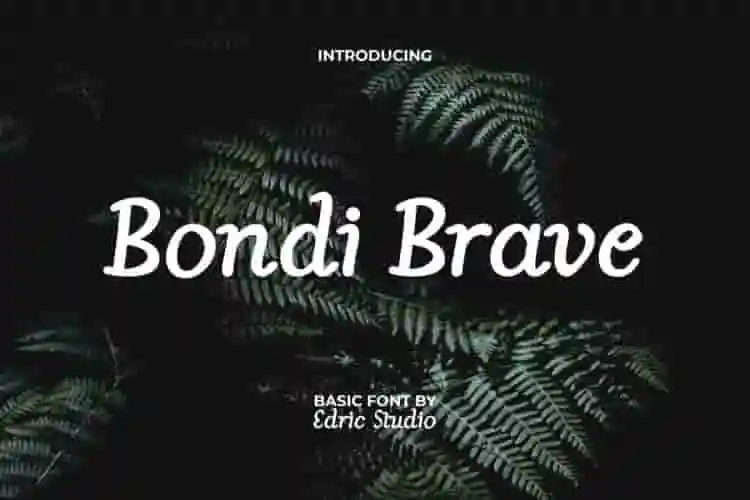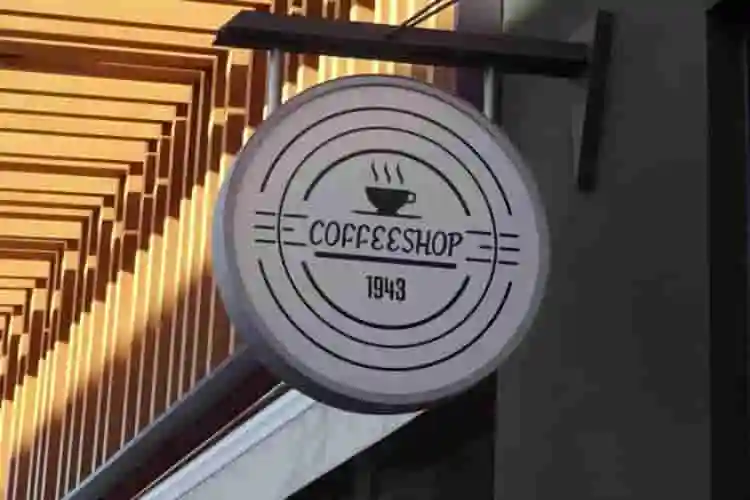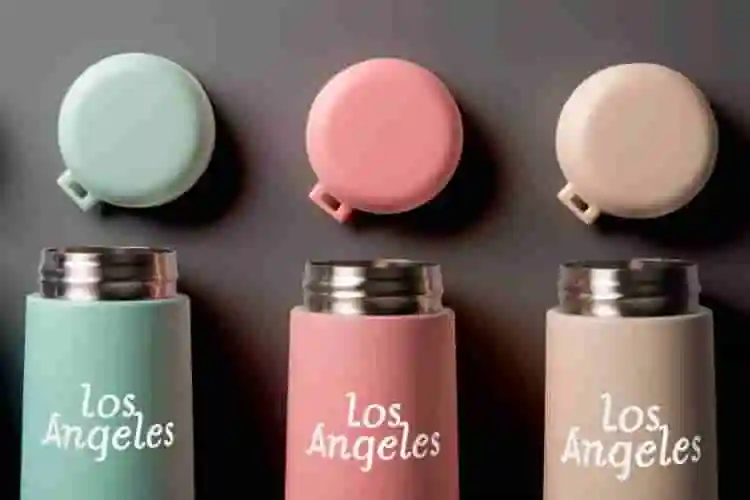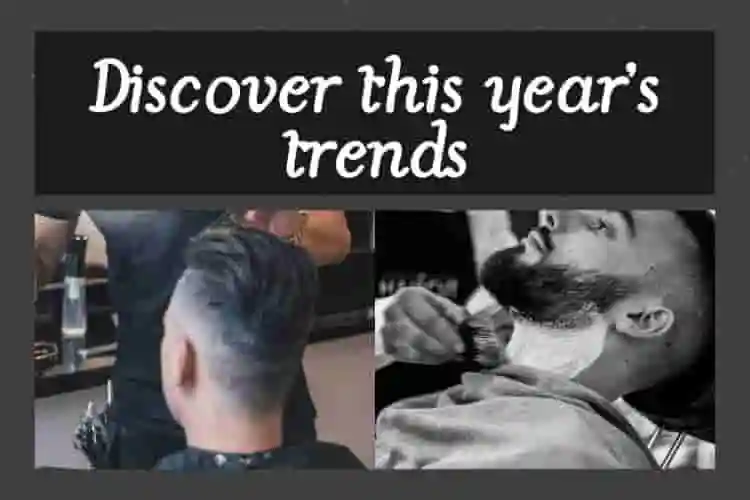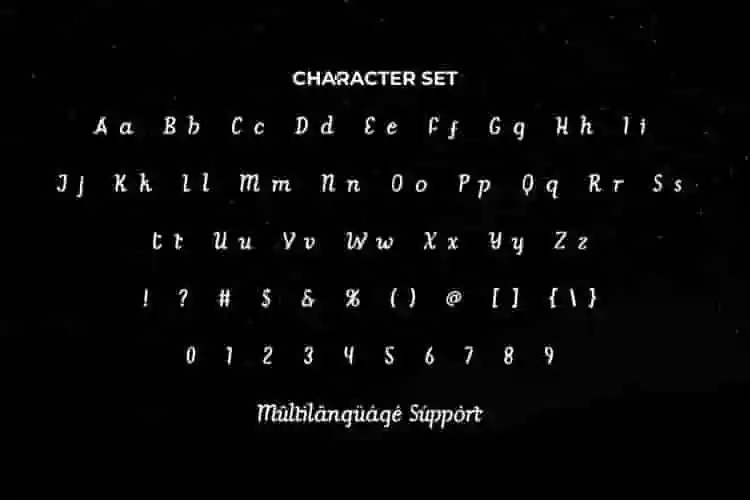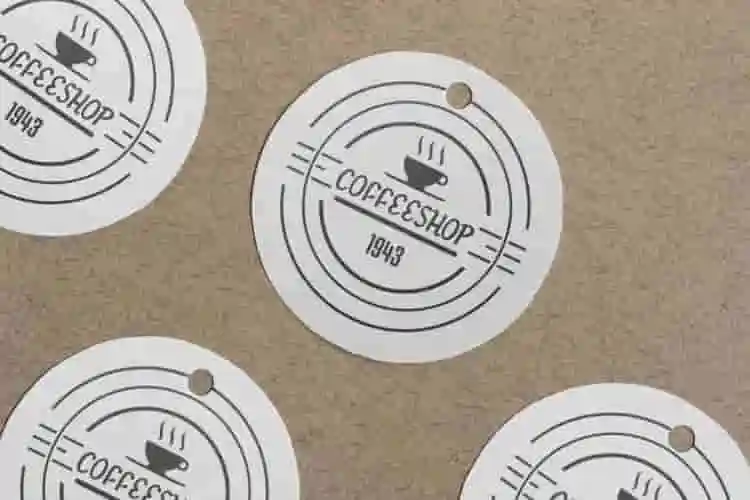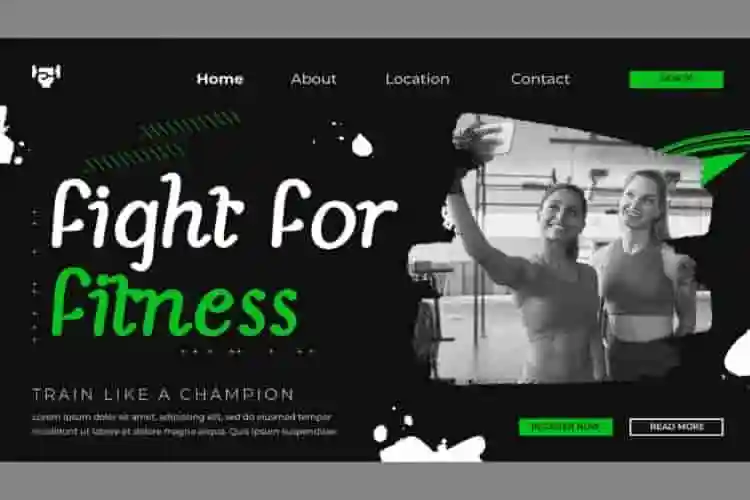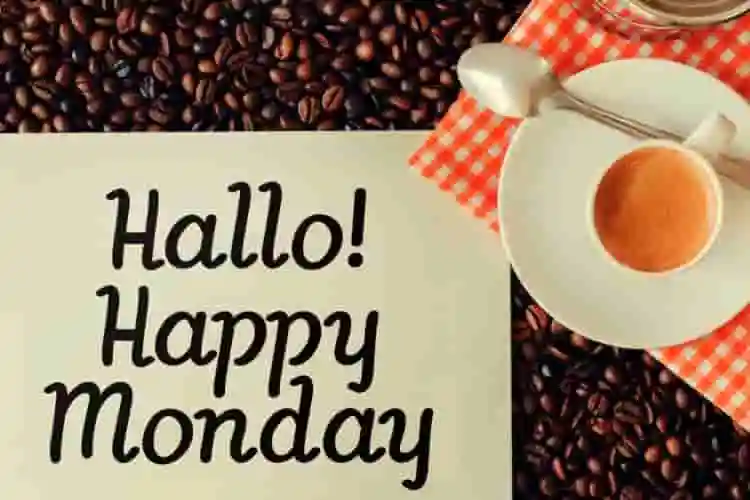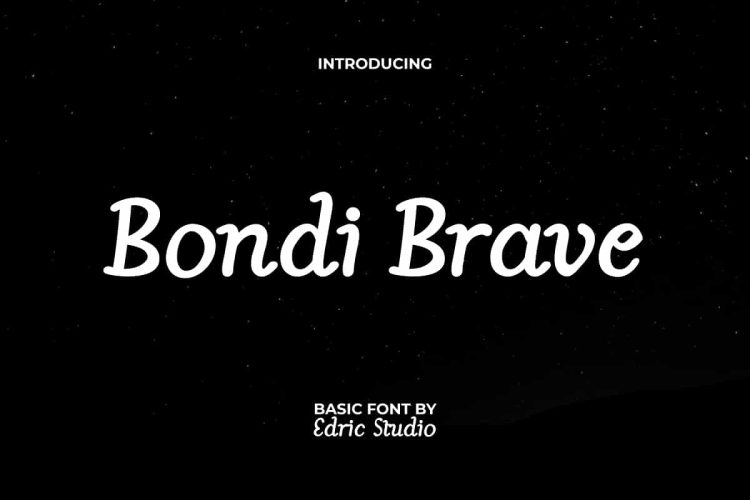
Bondi Brave Font is a sophisticated display font. The shape lines make this font have a natural handwriting style and are very easy to read. It would be ideal for art, cafe, content creator, event organizer, fashion, furniture, graphic design, handicraft, photography, restaurant, writer, and many more!
Bondi Brave Font comes with a full set of Uppercase and Lowercase Basic Characters, Number, Punctuation, and Symbol. This font can be paired with other types of fonts without reducing its charm and can complement any project, including: brand image, cover, custom design, flyer, header, invitation, label, menu, packaging design, poster, quote, screen print, signage, stationery, sticker, title, website, etc.
Introducing Bondi Brave Display Font — a bold, fearless, and modern display typeface designed to command attention. With sharp edges, solid structure, and a confident rhythm, this font gives your typography a voice that’s loud, proud, and impossible to ignore.
Crafted for designers who want to lead, not follow, Bondi Brave delivers striking impact in logos, poster headlines, branding, apparel, and social media graphics. Whether you’re designing for fashion, tech, music, or urban culture, this display font adds boldness and clarity to every word.
The geometric forms and clean lines give it a modern and minimal feel, while its bold weight makes it perfect for high-contrast layouts. Use it in large sizes and let your typography lead the conversation.
- Strong All-Caps Display Font
- Modern & Minimal Aesthetic